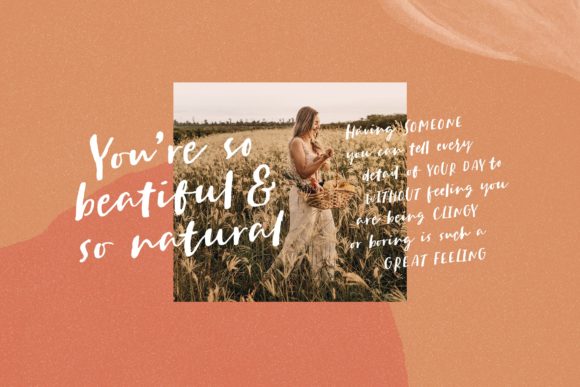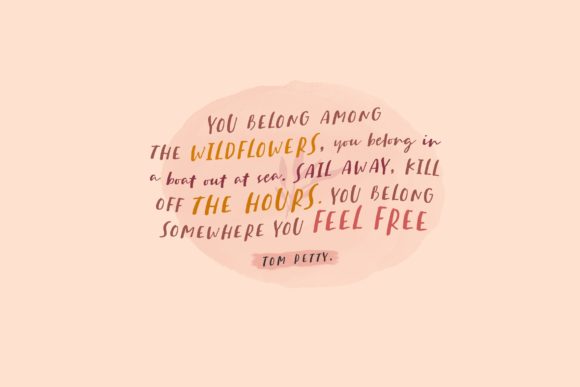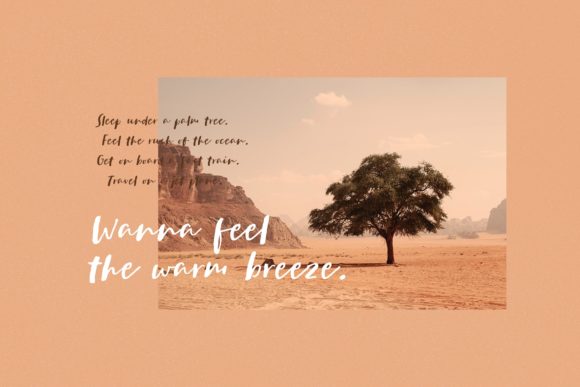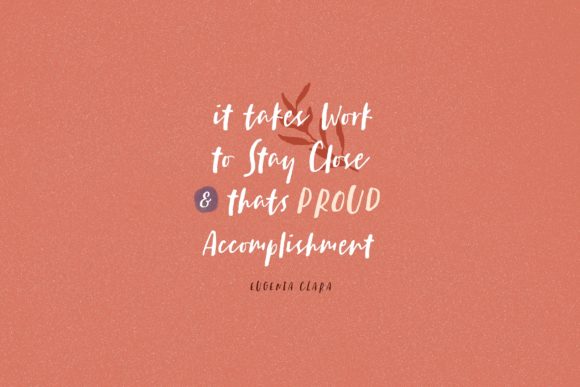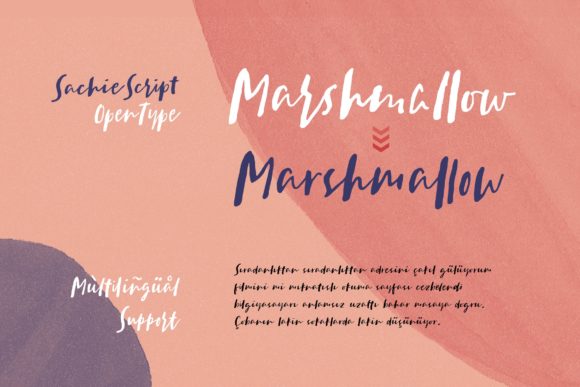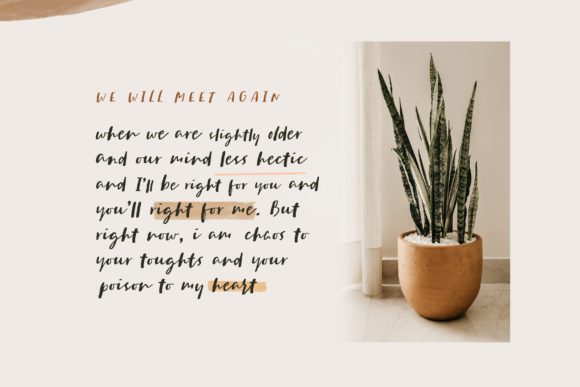
Introduction to Sachie Font Font
Fonts play a crucial role in design, and the Sachie Font font is a typeface that brings both character and versatility to any project. Whether you’re working on a branding project, a website, or a print design, the Sachie Font font offers a unique style that can elevate your work.
Sachie is a cool and fun handwritten font with a unique style.
Get inspired by its authentic vibe .
Key Features of Sachie Font Font
Why Choose Sachie Font Font?
The Sachie Font font is more than just a typeface – it’s a design tool that helps you communicate your message with style and clarity. Its unique character set and versatile design make it suitable for a wide range of applications, from elegant invitations to bold headlines.
With its carefully crafted letterforms and balanced proportions, the Sachie Font font ensures readability and visual appeal across all mediums.
What makes Sachie Font font special?
The Sachie Font font stands out with its unique design, exceptional readability, and versatility across various design applications.